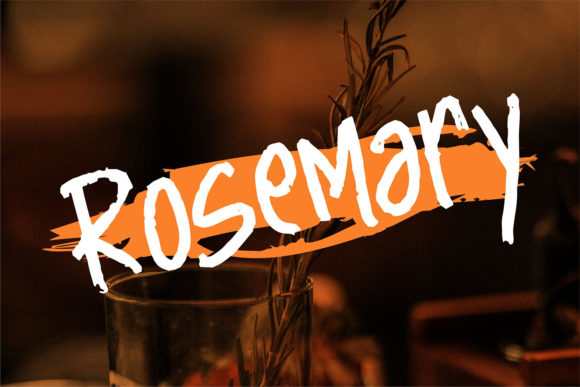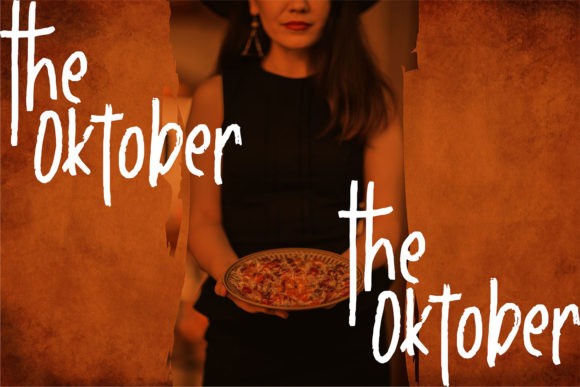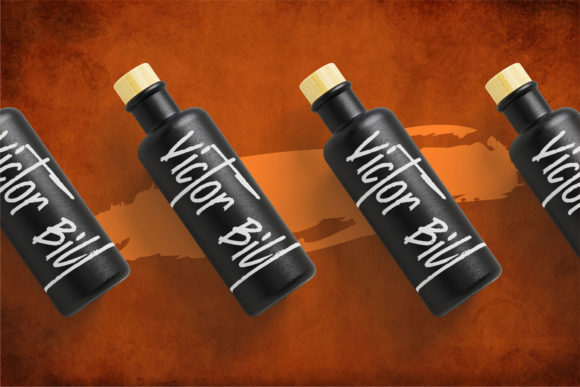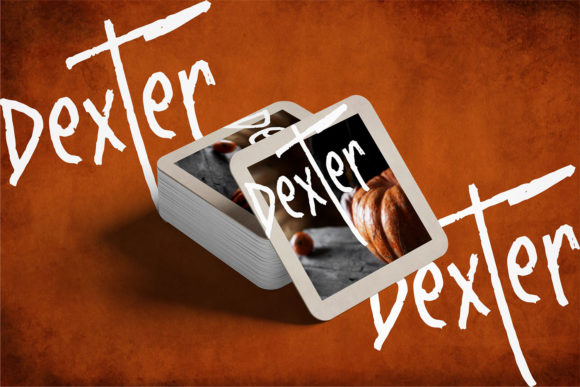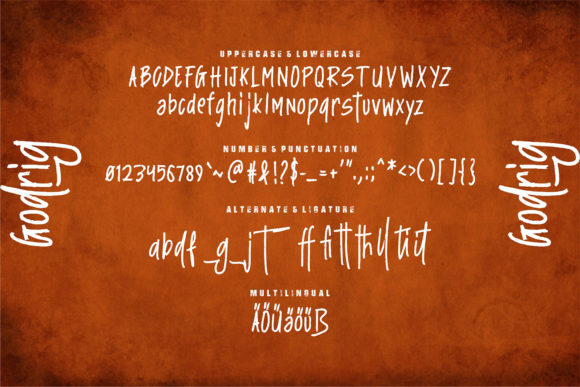
Introducing Godrig Font: Elevate Your Designs with a Simple yet Powerful Typeface
In the world of design, typography plays a crucial role in conveying messages, expressing creativity, and capturing the audience’s attention. For designers and crafters seeking a font that combines simplicity with a unique texture, Godrig Font is an excellent choice. This urban-styled, neat font is designed to make each of your designs stand out, and with its rough textured display, it’s sure to add a touch of sophistication to any project.
What is Godrig Font?
Godrig is a simple, rough textured display font that boasts an urban aesthetic. Its neat and clean lines make it perfect for a wide range of design applications, from branding and advertising to packaging and digital media. The font’s unique texture gives it a distinctive look that sets it apart from more traditional typefaces.
Key Features of Godrig Font
- Simple yet Impactful: Godrig’s clean design ensures that your message is conveyed clearly, while its textured appearance adds a layer of depth and interest.
- Urban Style: The font’s urban aesthetic makes it ideal for designs that require a modern, edgy feel.
- Versatile: Godrig can be used across various platforms and design applications, making it a versatile addition to your font library.
- Easy to Read: Despite its textured appearance, Godrig remains highly legible, ensuring that your designs are both stylish and functional.
Benefits of Using Godrig Font
By incorporating Godrig into your design projects, you can enjoy several benefits:
- Enhanced Visual Appeal: The font’s unique texture and urban style can help your designs stand out in a crowded marketplace.
- Improved Brand Identity: Godrig’s distinctive look can contribute to a strong brand identity, setting your brand apart from competitors.
- Time-Saving: With Godrig, you can achieve professional-looking results quickly and easily, saving you time and effort in the design process.
- Cross-Platform Compatibility: Godrig can be used across various platforms, including print, digital, and web applications.
How to Use Godrig Font Effectively
To get the most out of Godrig, consider the following tips:
- Pair with Complementary Fonts: Combine Godrig with other fonts to create visual interest and hierarchy in your designs.
- Experiment with Colors: Godrig’s textured appearance works well with a range of colors, so don’t be afraid to experiment and find the perfect combination for your design.
- Use for Headings and Titles: Godrig’s bold, eye-catching appearance makes it perfect for headings and titles.
Godrig Font is a simple yet powerful typeface that can elevate your designs and help you achieve professional-looking results. Its unique texture, urban style, and versatility make it an excellent addition to any design project. Whether you’re a designer, crafter, or simply someone looking to add a touch of sophistication to your work, Godrig is definitely worth considering. So why not give it a try and see how it can enhance your designs?